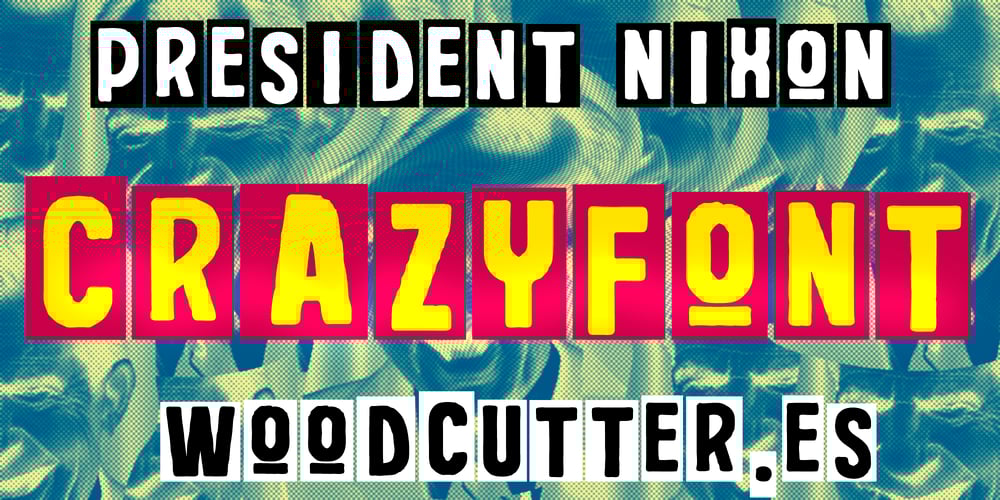
President Nixon Font Family was designed by Jordi Manero and published by Woodcutter. President Nixon contains 1 styles and family package options. “President Nixon” is a striking and distinctive typeface, composed of uppercase letters encapsulated in rectangles with unstable bases. Each letter appears to be contained within a frame that gives it a firm yet destabilized look, creating a sense of tension and dynamism. Ideal for headlines and posters, this typeface conveys a bold and powerful style, perfect for projects requiring a strong and memorable presence. “President Nixon” stands out for its unique design and its ability to capture attention with its unusual structure and imposing character.